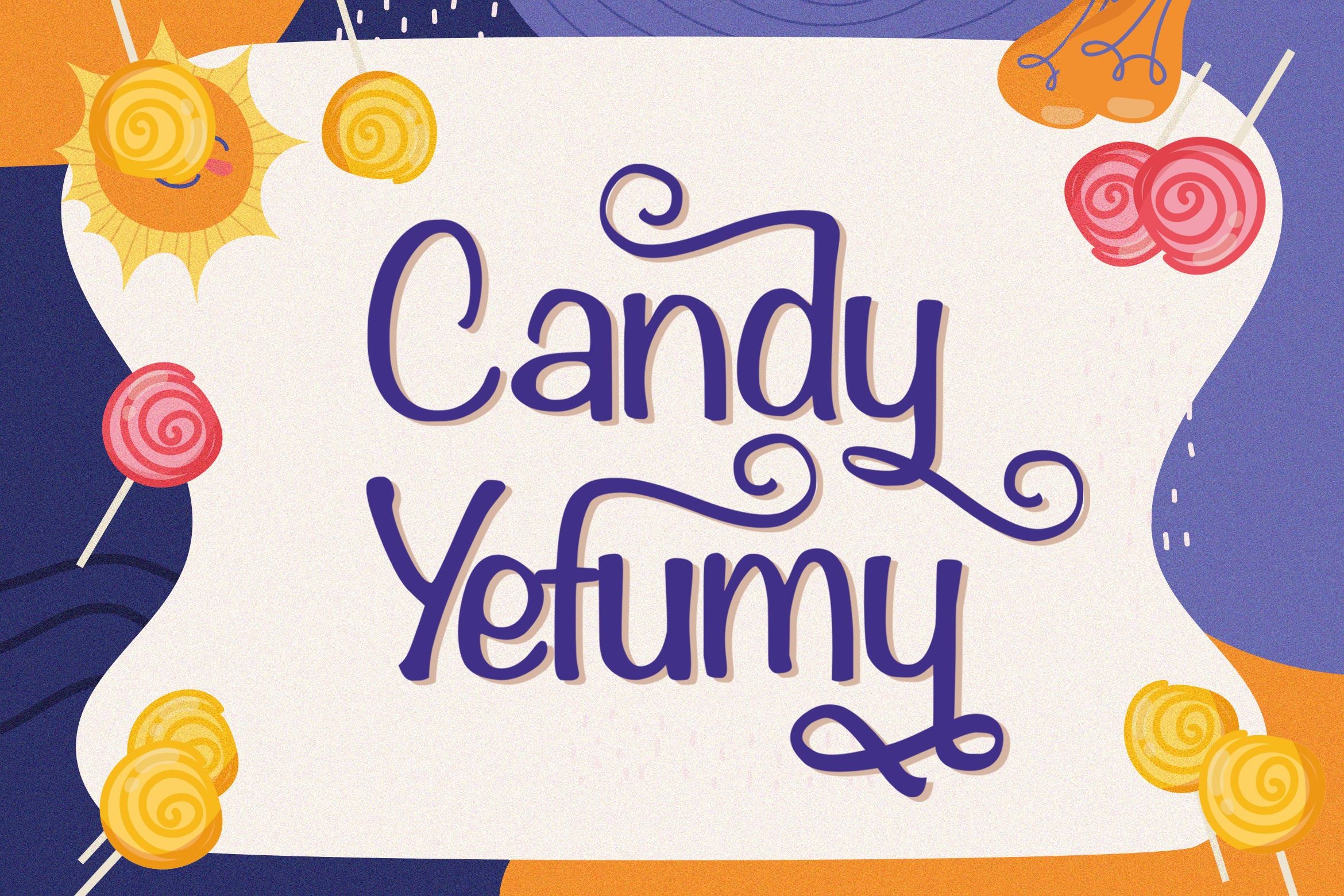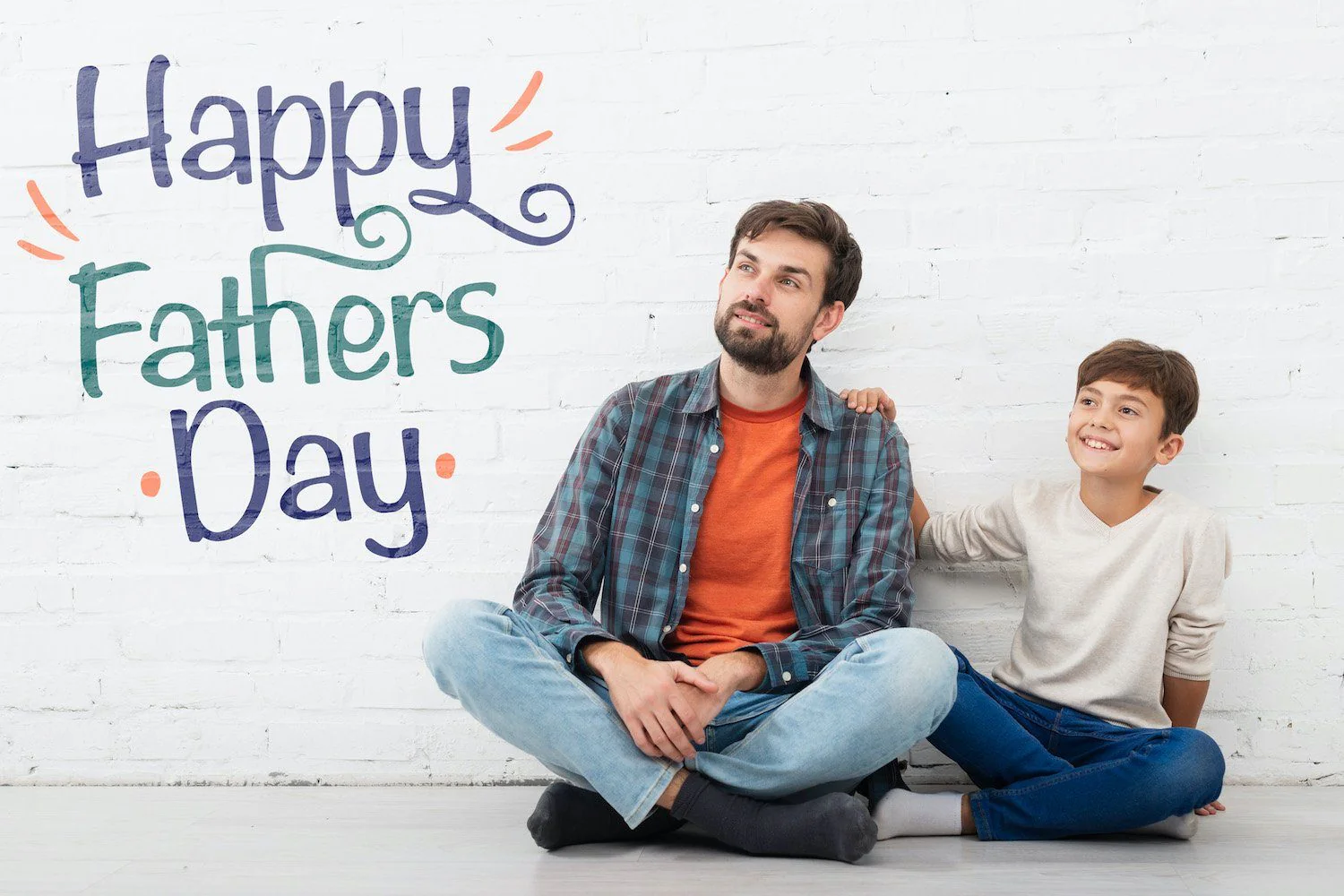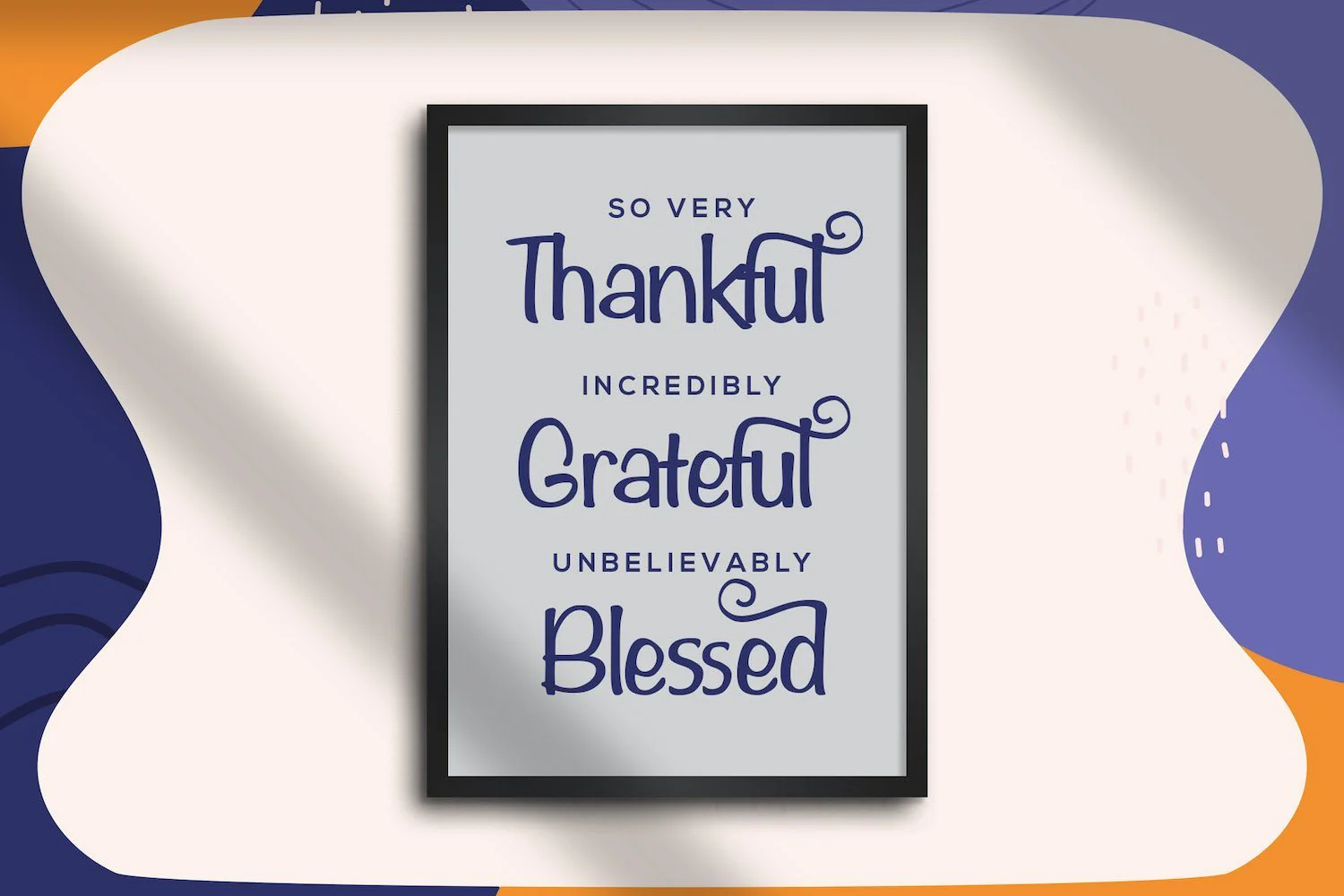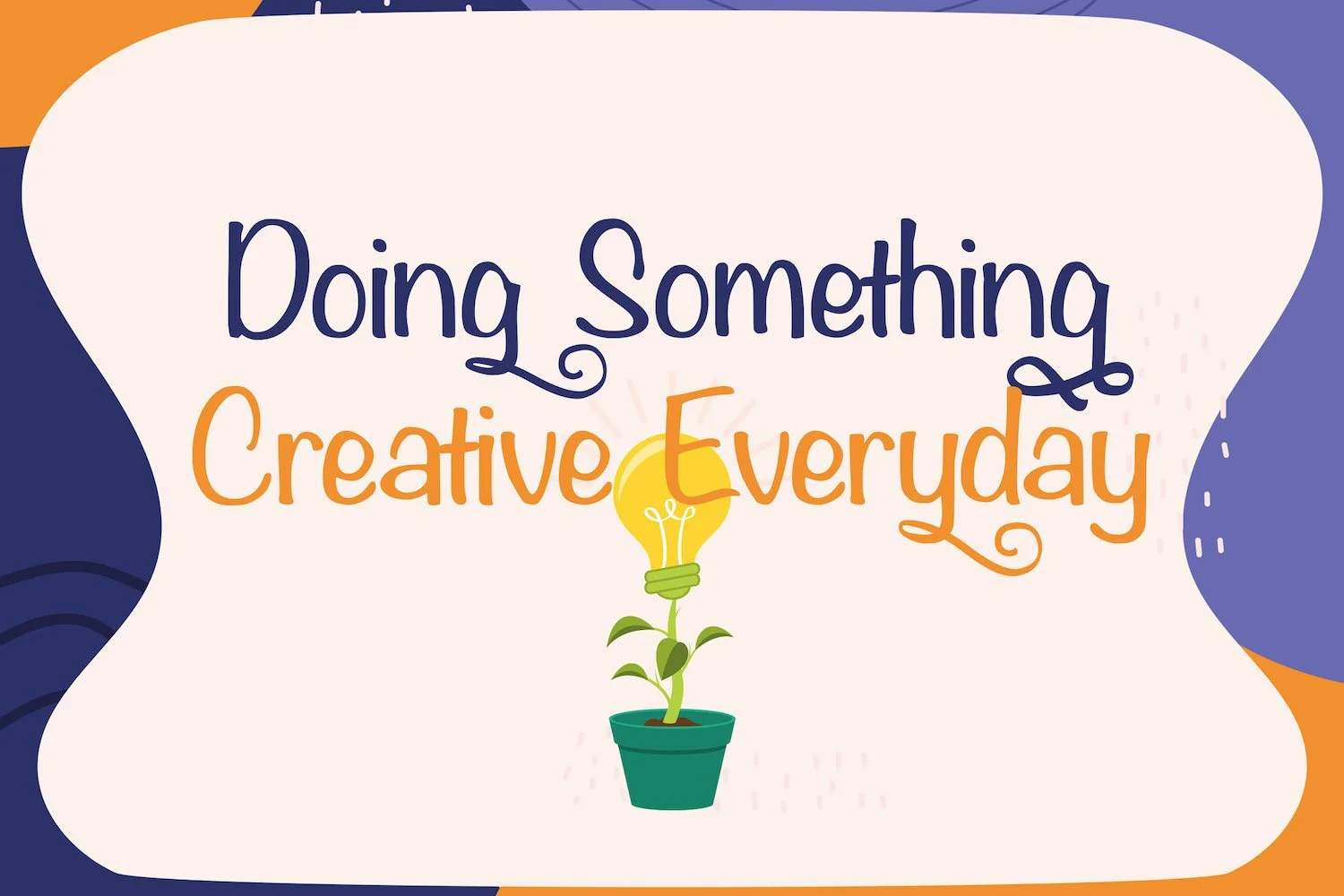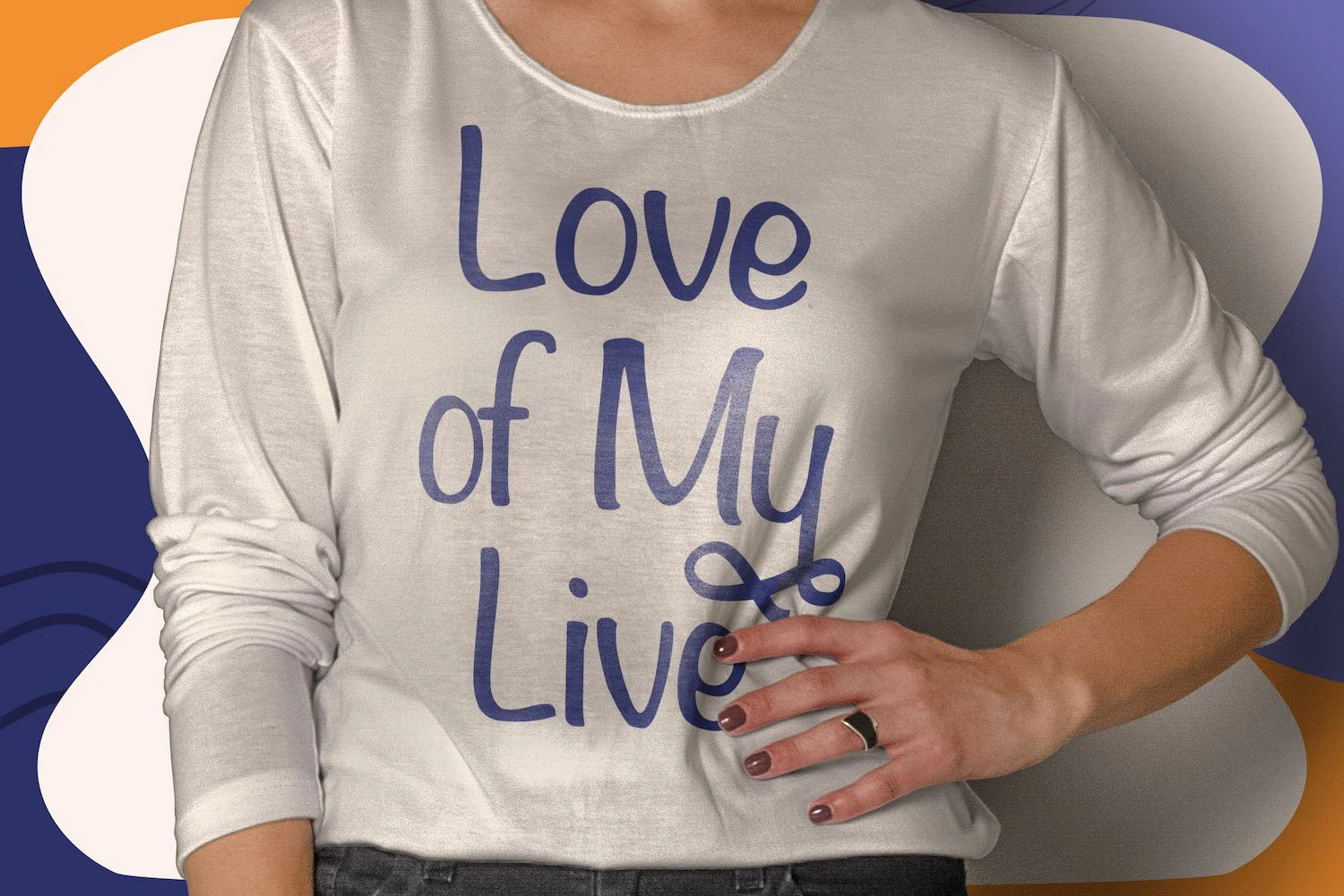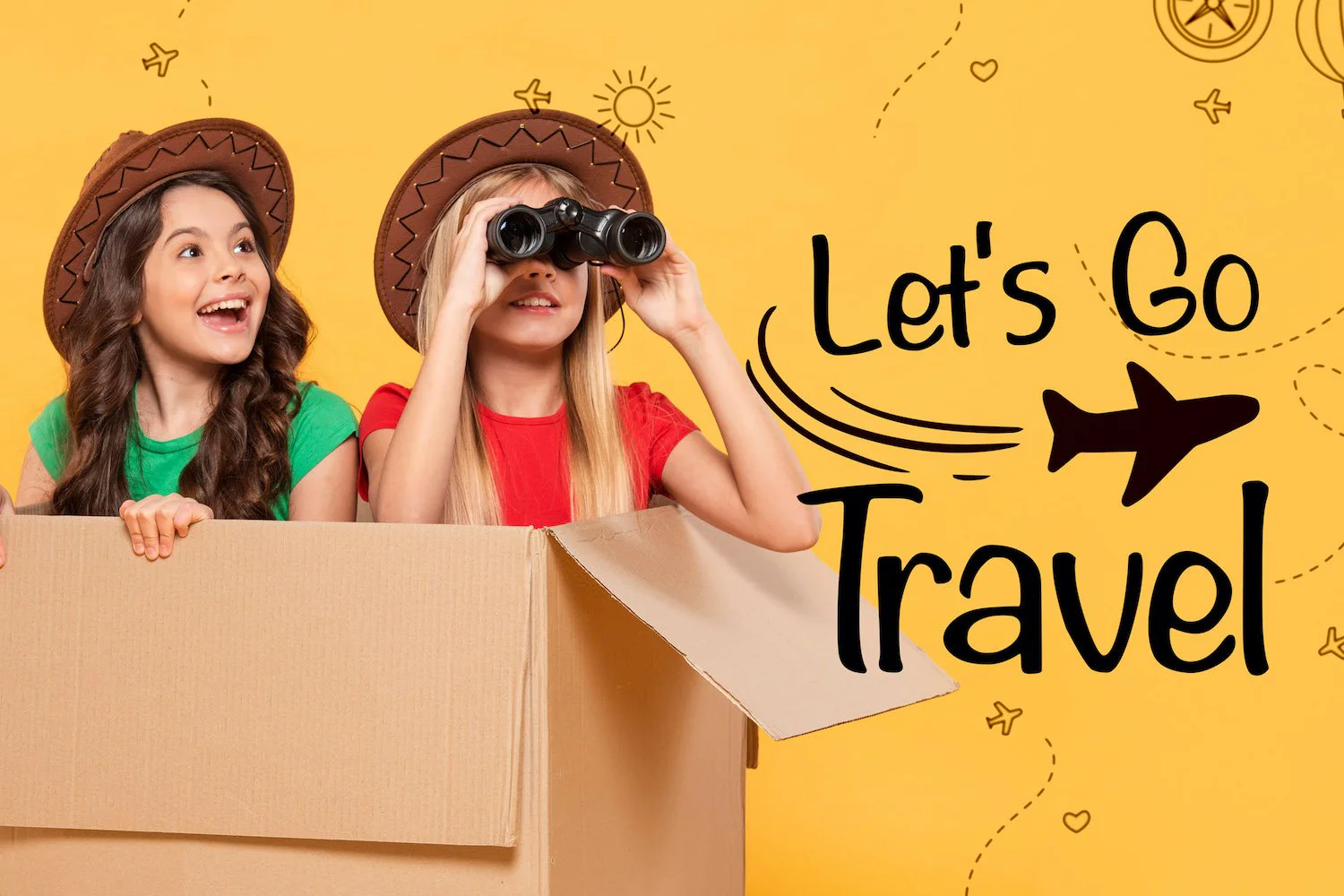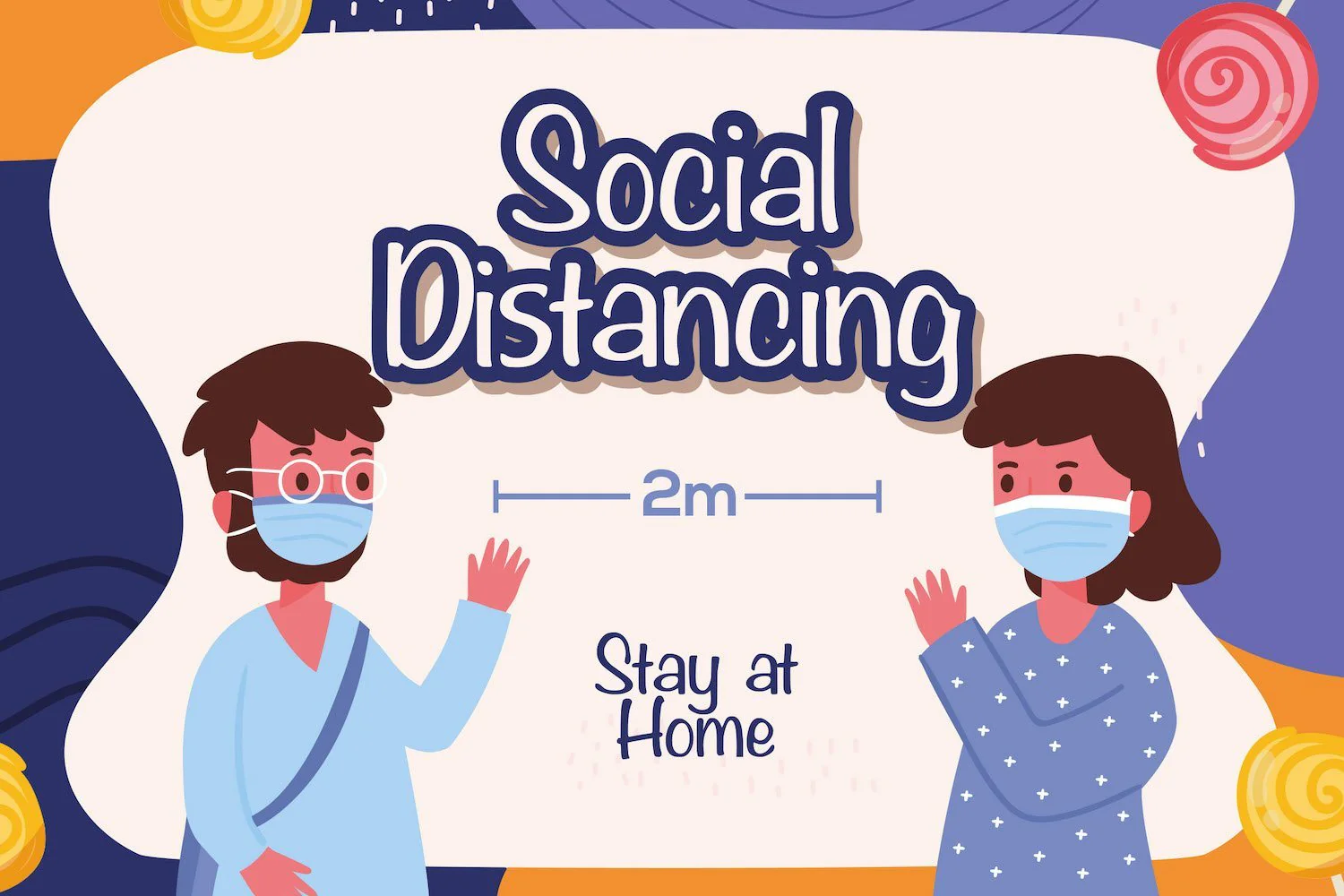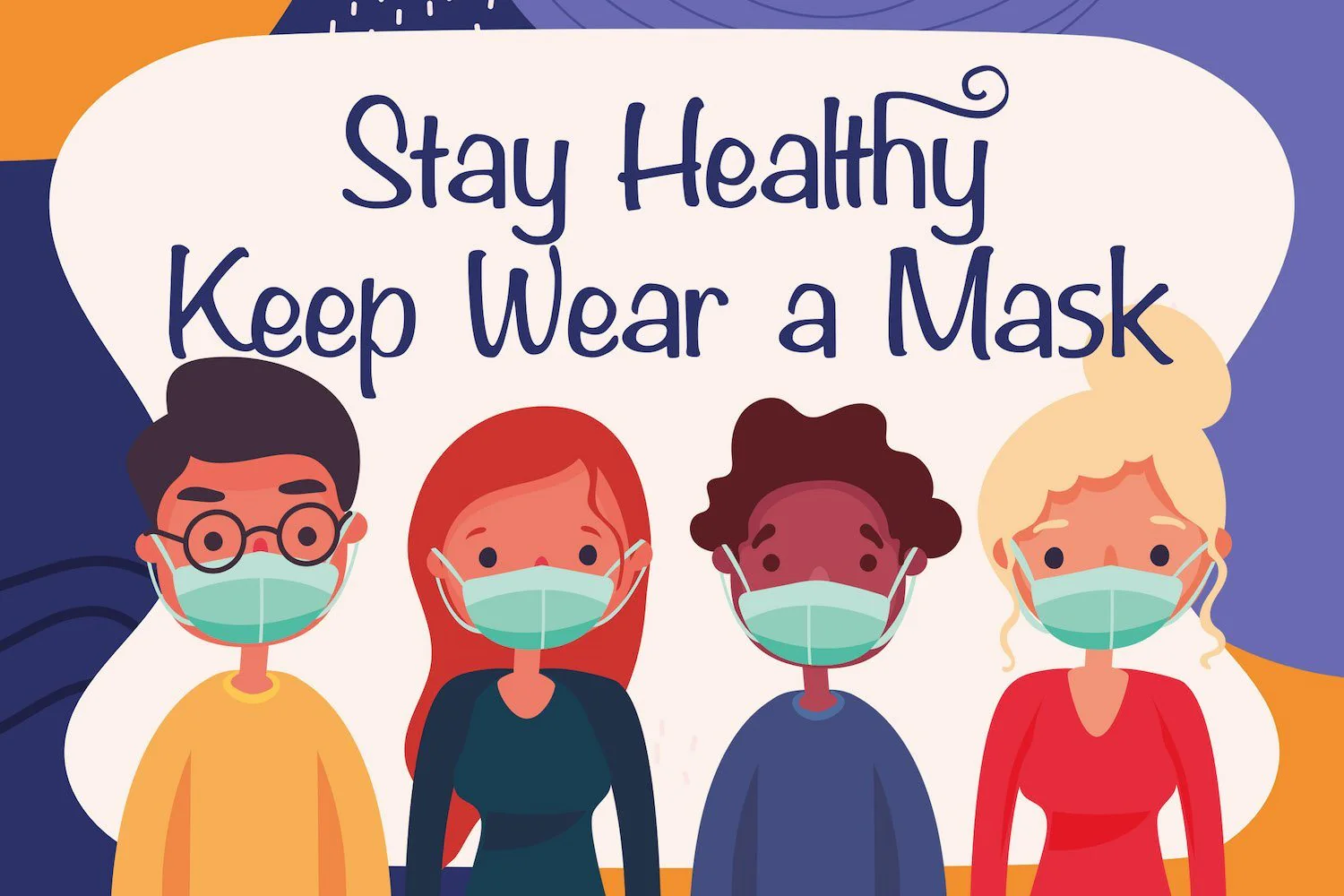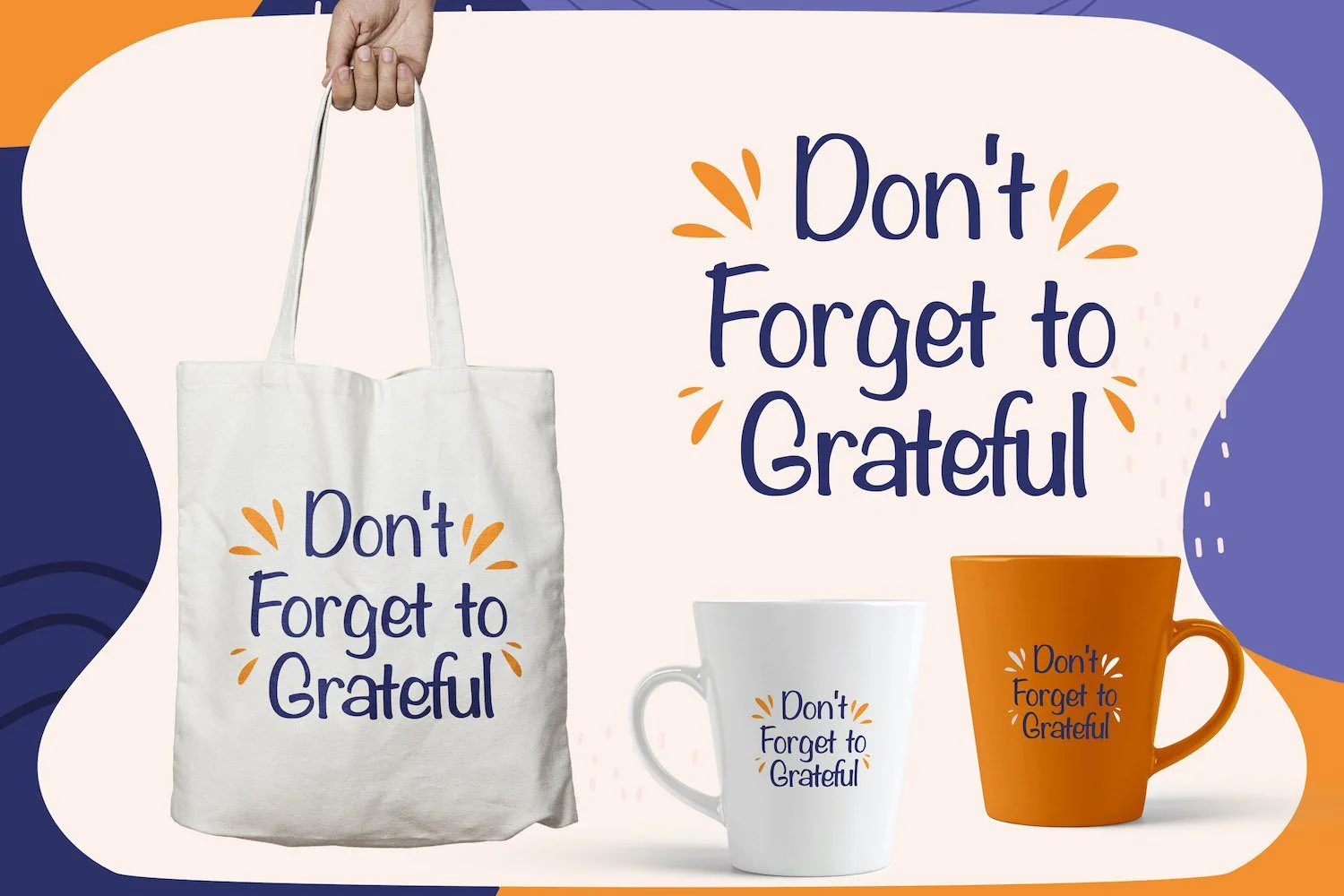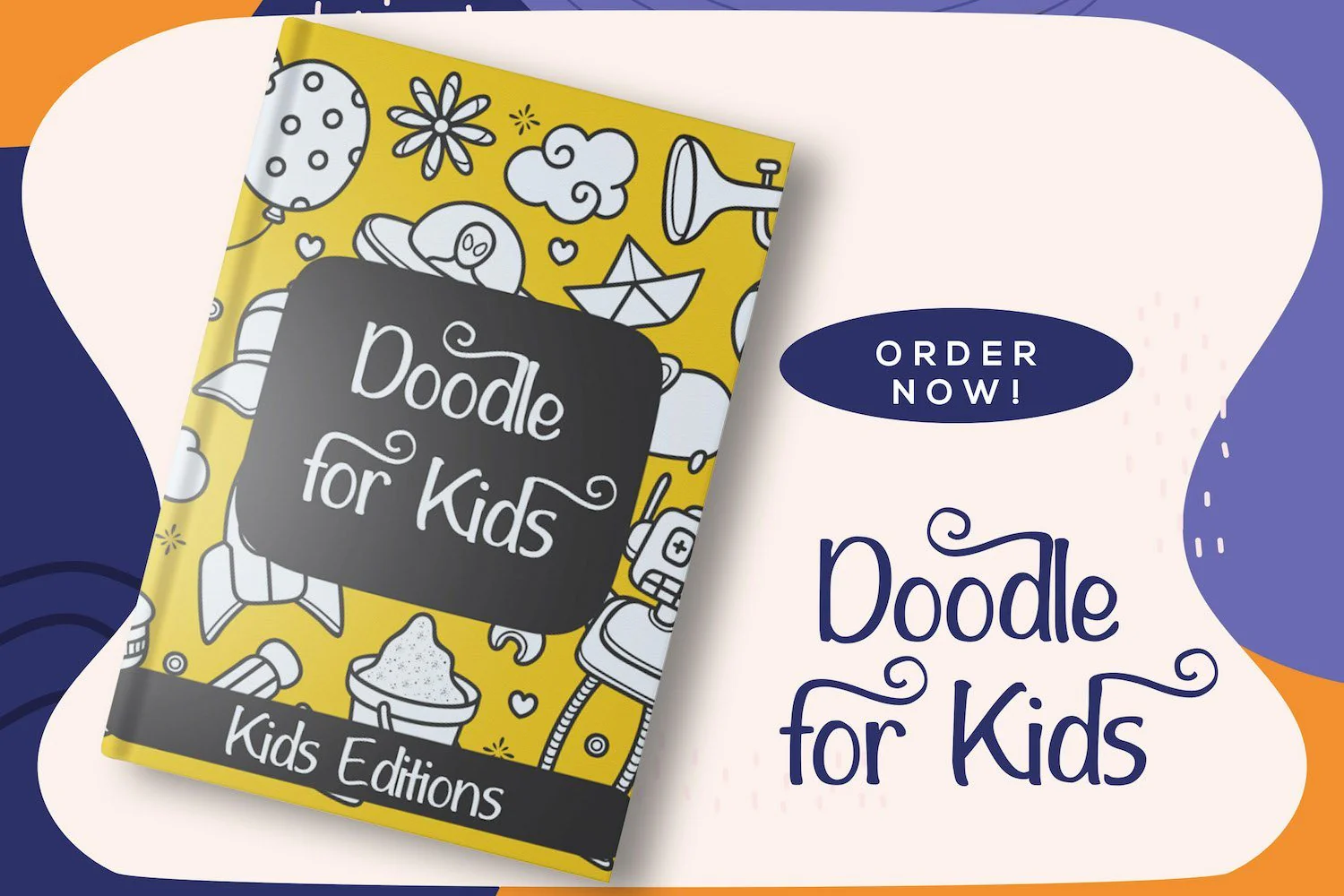
Candy Yefumy - Playful Display Font
Introducing Candy Yefumy - Playful Display Font
Candy Yefumy is a cute and playful display font. It will add an incredibly joyful touch to your designs. Add this beautiful display font to each of your creative ideas and notice how it makes them stand out!
Introducing Candy Yefumy - Playful Display Font
Candy Yefumy is a cute and playful display font. It will add an incredibly joyful touch to your designs. Add this beautiful display font to each of your creative ideas and notice how it makes them stand out!